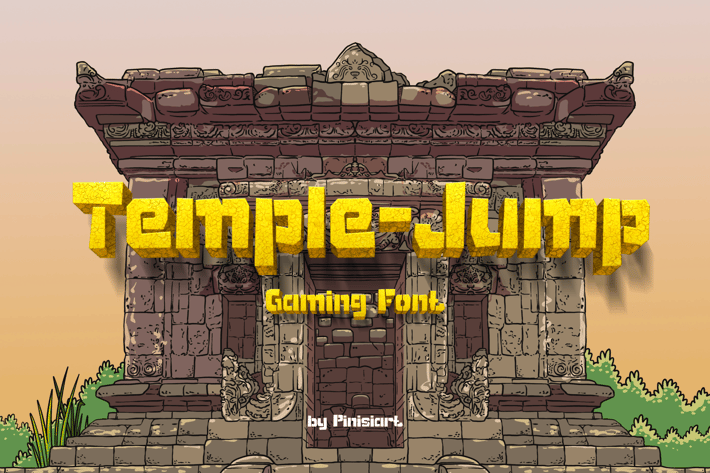
Temple Jump - Gaming Font
Remember the classic Temple Run games years ago? That games inspire this one. Being versatile and adventurous is what Temple Jump is all about. Made in stencil style, so it will also suit for your military related projects.